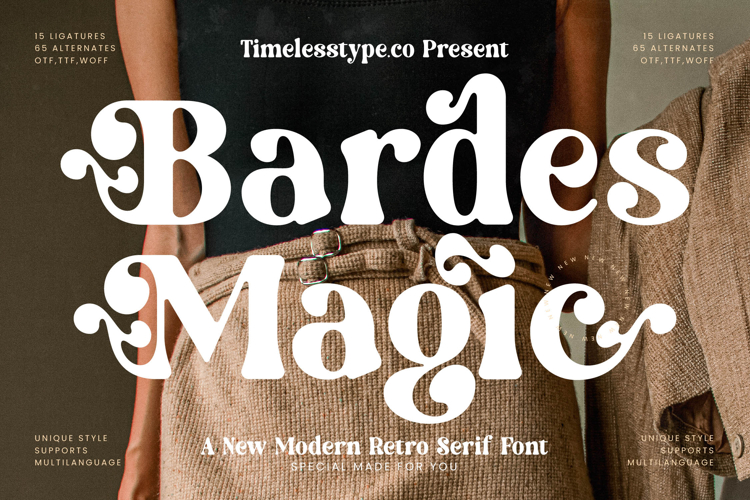
Bardes Magic - New Modern Retro Serif Font
Unleash a captivating blend of vintage charm and contemporary flair with Font Bardes Magic - New Modern Retro Serif Font Serif Display. This unique display serif typeface immediately commands attention, featuring bold, flowing curves and distinctive, elegant serifs that exude playful sophistication. Its high-contrast forms are meticulously crafted to deliver stunning visual impact, making every word a focal point.
Elevate your creative projects with unparalleled stylistic depth and flexibility. Font Bardes Magic - New Modern Retro Serif Font Serif Display boasts 15 ligatures and 65 alternates, providing endless opportunities for customisation and unique typographic expressions. These thoughtful additions empower designers to craft memorable headlines, logos, and branding elements that are highly individualised.
Expand your brand's reach effortlessly across any border. With its extensive multilingual support, Font Bardes Magic - New Modern Retro Serif Font Serif Display adapts seamlessly across global markets, making it incredibly versatile for international projects. This feature ensures your message resonates universally, maintaining its distinctive retro-modern aesthetic and professional integrity.
Discover the ultimate typeface for making a powerful statement. Font Bardes Magic - New Modern Retro Serif Font Serif Display is perfectly suited for luxury branding, high-end packaging, editorial design, fashion labels, invitations, and any project requiring stylish headlines or display graphics. It’s the ideal choice for creating a memorable visual identity that balances nostalgia with modern elegance.